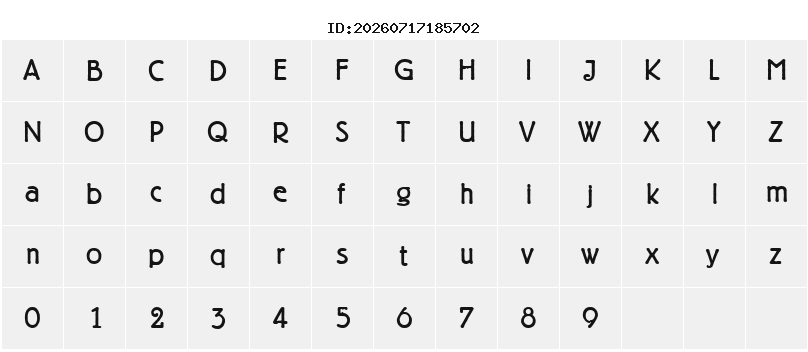
BerlinerGroDLig Preview
• Font Name: BerlinerGroDLig
• Full Font Name: BerlinerGroDLig
About BerlinerGroDLig.ttf
BerlinerGroDLig.ttf is a modern, elegant sans-serif font designed for ultimate readability and visual harmony. Perfect for branding, headlines, web design, and print materials.